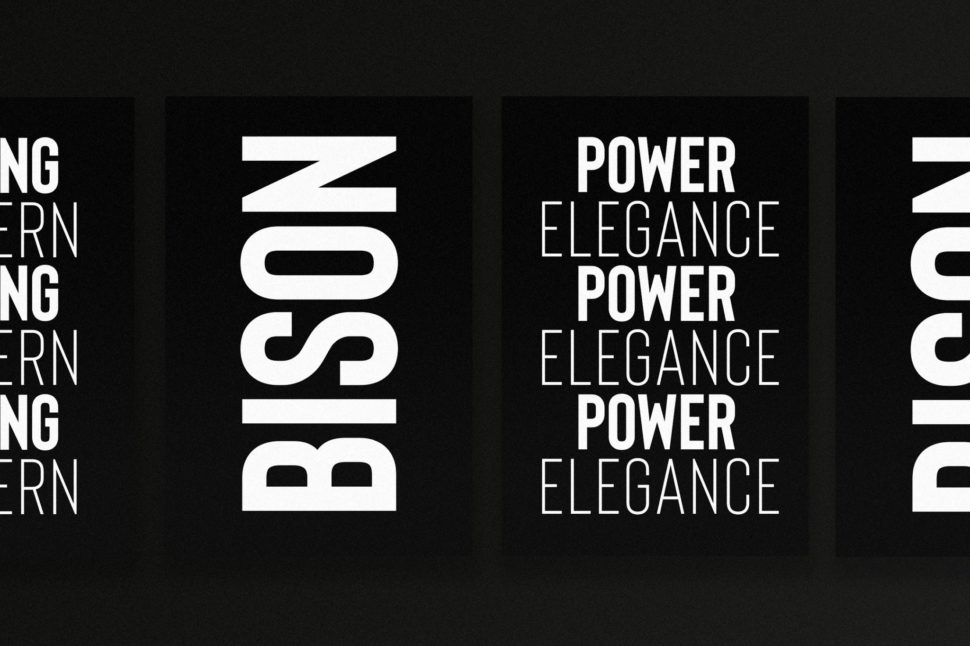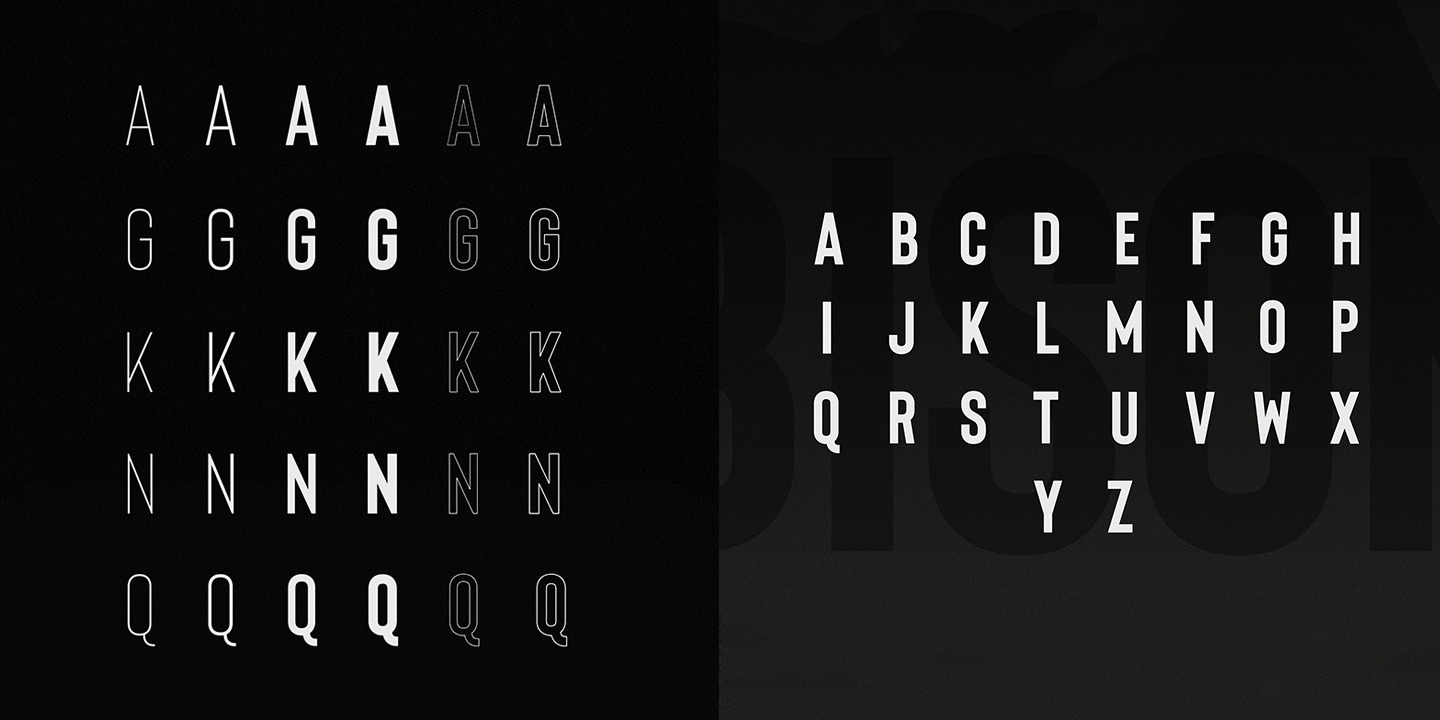
Bison Bold Font
Bison Bold Font - Bison is a strong fontfamily and sophisticated sans serif. Bison à € by ellen luff. Inspired by the animal, it's sturdy. Web download free bison bold font by tom jerry. 703,845 downloads (278 yesterday) free for personal use. In basic > sans serif.